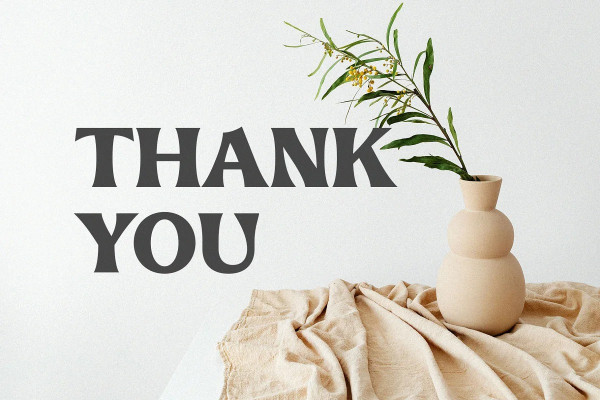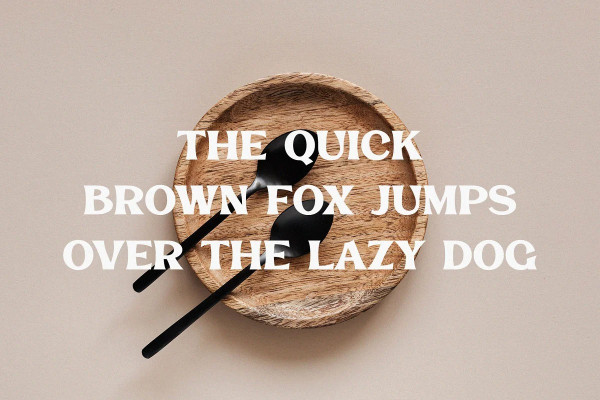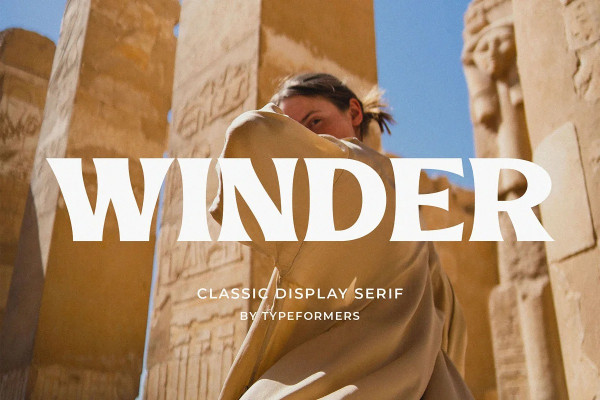
Winder Font
Winder Font – Classic Display Serif, is a modern and simple font, best used as a display for headings, logos, branding, magazines, product packaging and invitations.